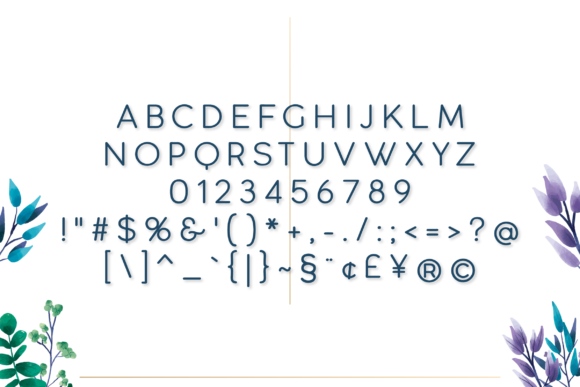
Coconode Font: The Perfect Blend of Readability and Modernist Design
In the world of typography, a good font can make all the difference in the success of a design project. For designers and crafters, finding the perfect font that combines readability with a unique and modernist design can be a daunting task. However, if you’re looking for a font that checks all these boxes, look no further than Coconode Font. In this article, we’ll dive into the features and benefits of Coconode, and explore why it’s a must-have for any designer or crafter looking to elevate their typography game.
What is Coconode Font?
Coconode Font is a gorgeously unique sans serif font that combines perfect readability with a clean and modernist lettering design. Its sleek and minimalist aesthetic makes it perfect for a wide range of design applications, from branding and advertising to packaging and digital media. Whether you’re working on a logo, brochure, or website, Coconode Font is sure to make a statement.
Key Features of Coconode Font
- Unique Sans Serif Design: Coconode Font boasts a distinctive sans serif design that sets it apart from other fonts. Its clean lines and minimalist aesthetic make it perfect for modern designs.
- Perfect Readability: Despite its unique design, Coconode Font remains highly readable, even at small sizes. This makes it perfect for body text, captions, and other applications where legibility is key.
- Modernist Lettering: Coconode Font’s modernist lettering design gives it a sleek and sophisticated feel that’s perfect for high-end designs.
- Versatile: Coconode Font is highly versatile, making it suitable for a wide range of design applications, from print to digital media.
Benefits of Using Coconode Font
So why choose Coconode Font for your next design project? Here are just a few benefits of using this amazing font:
- Stand Out from the Crowd: With its unique design, Coconode Font is sure to make your design stand out from the crowd. Whether you’re working on a branding project or a digital media campaign, this font is sure to grab attention.
- Enhance Readability: Coconode Font’s high readability makes it perfect for body text and other applications where legibility is key. This means your audience will be able to easily read and understand your message.
- Elevate Your Brand: With its modernist design, Coconode Font is perfect for brands looking to elevate their image and appear more sophisticated and high-end.
- Save Time: With Coconode Font, you can save time and effort by using a pre-designed font that looks great and is highly readable.
How to Use Coconode Font
- Pair it with Other Fonts: Coconode Font pairs well with other fonts, making it perfect for use in combination with other typography.
- Experiment with Sizes: Coconode Font remains highly readable even at small sizes, making it perfect for use in a variety of design applications.
- Use it for Headings and Body Text: Coconode Font is perfect for use in headings and body text, making it a versatile addition to any design project.